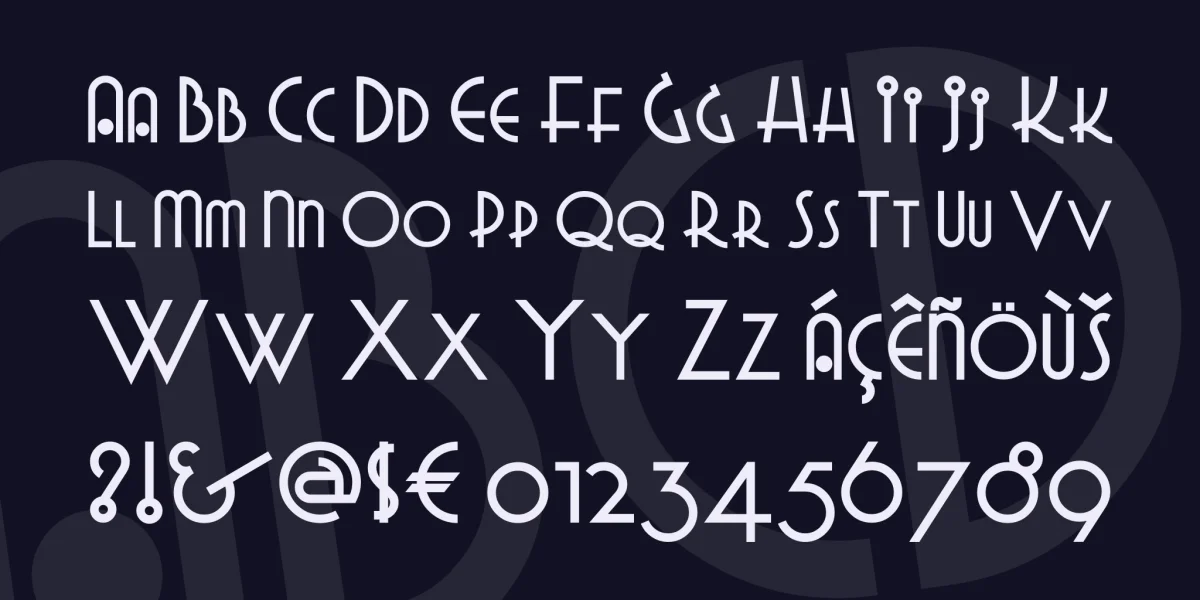
The inspiration for this curious typeface was encountered on a 1930s Italian travel poster. The resulting font combines graceful elegance with a few unexpected playful twists, and is named for the place touted on the poster, and a variant of that name that had some currency in the early 60s as a synonym for crapola.